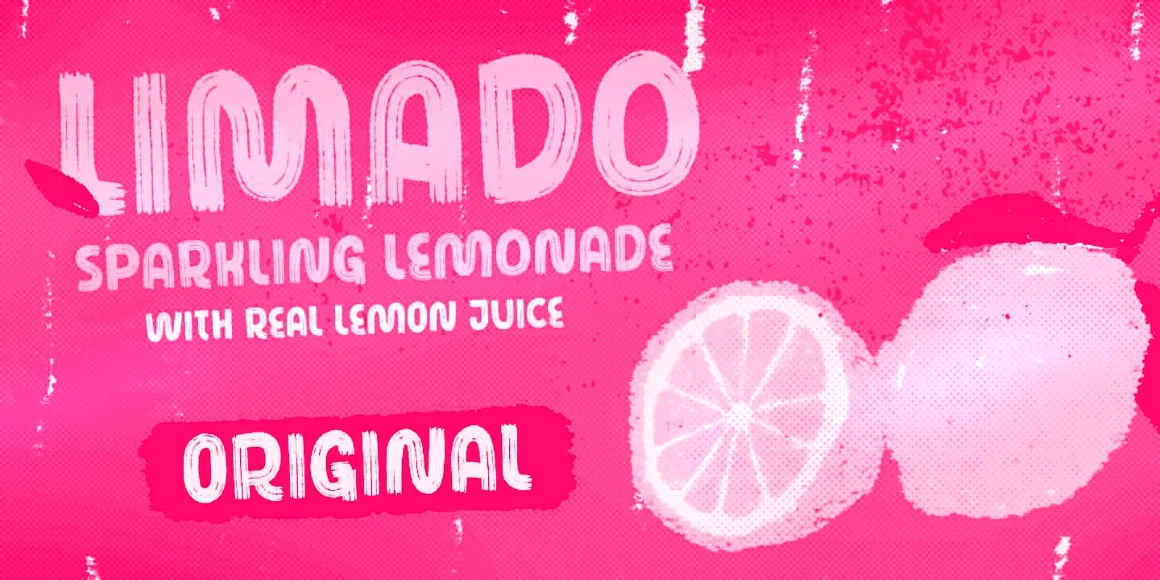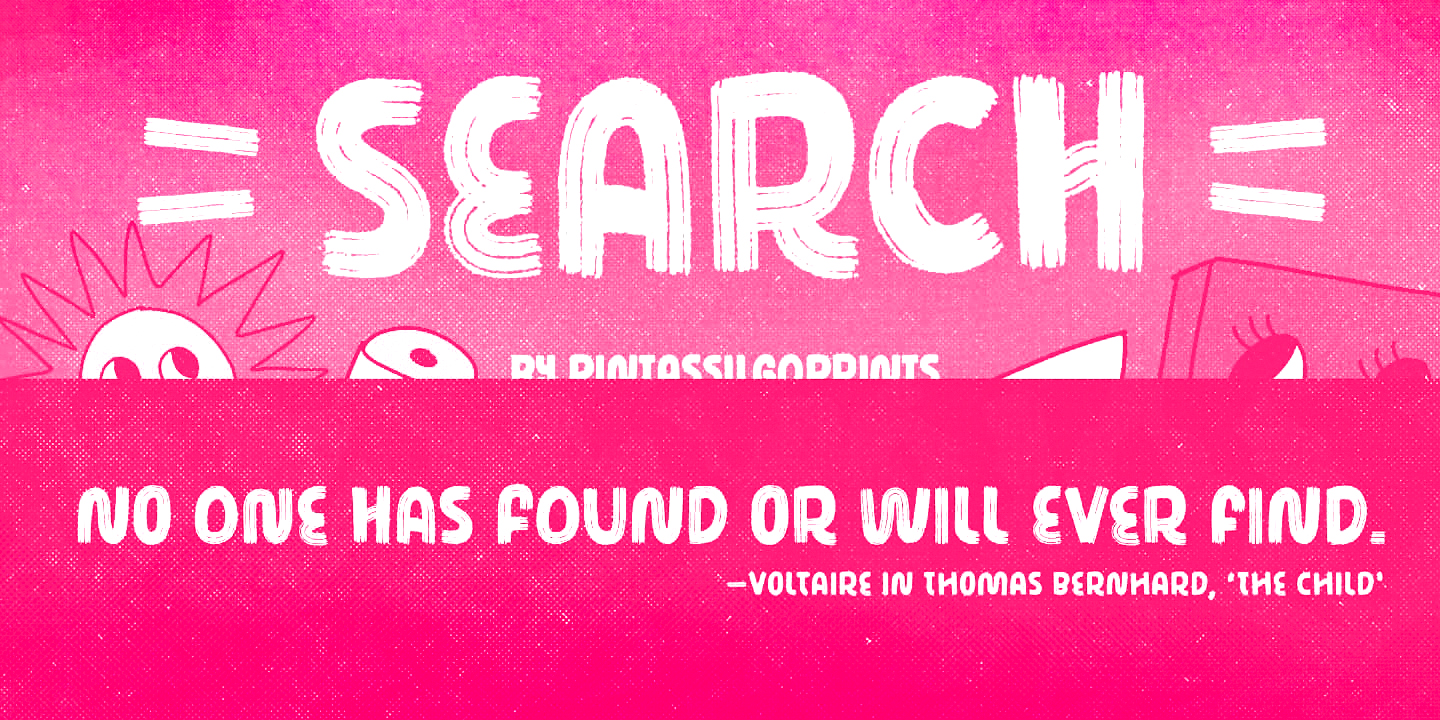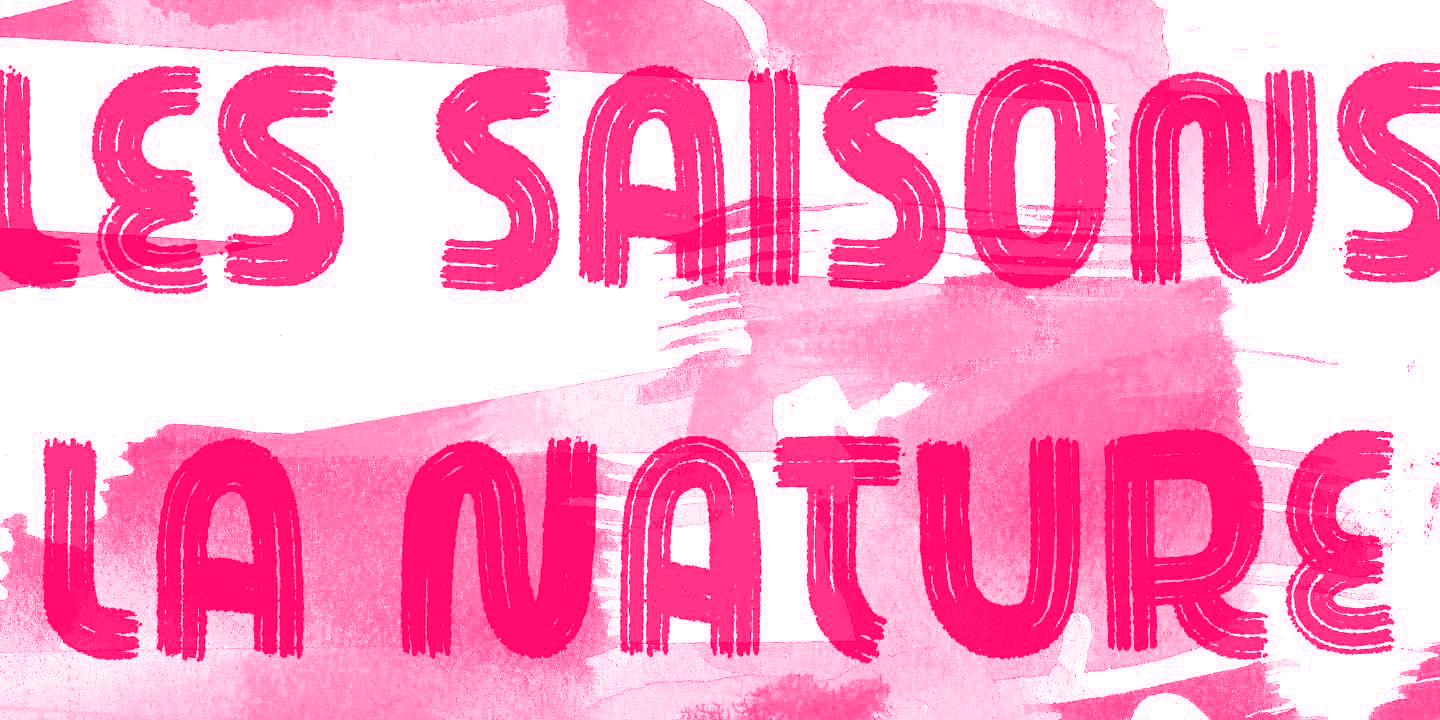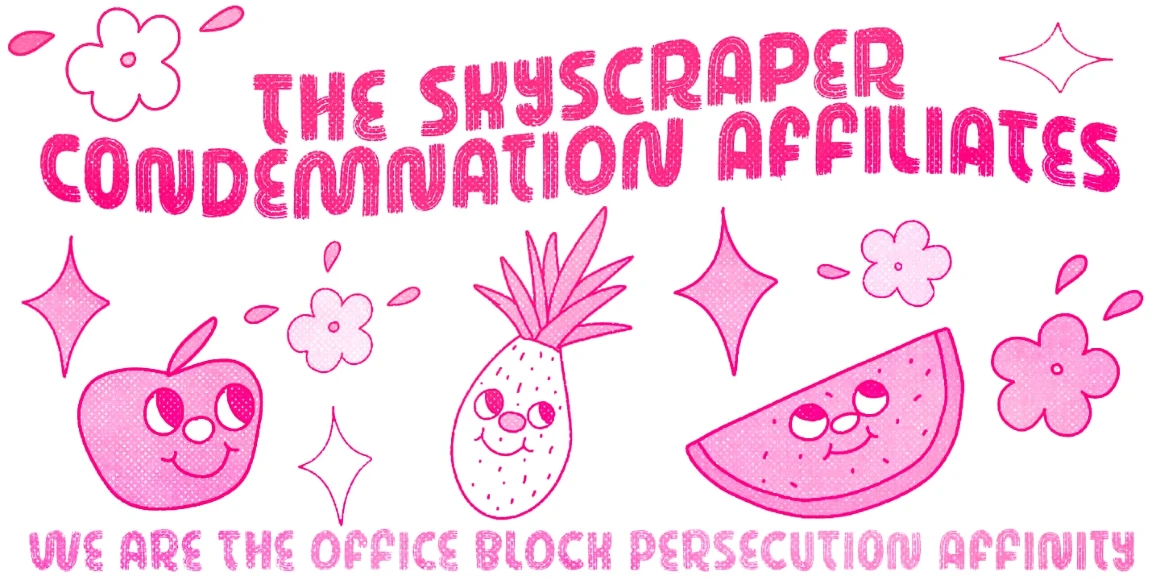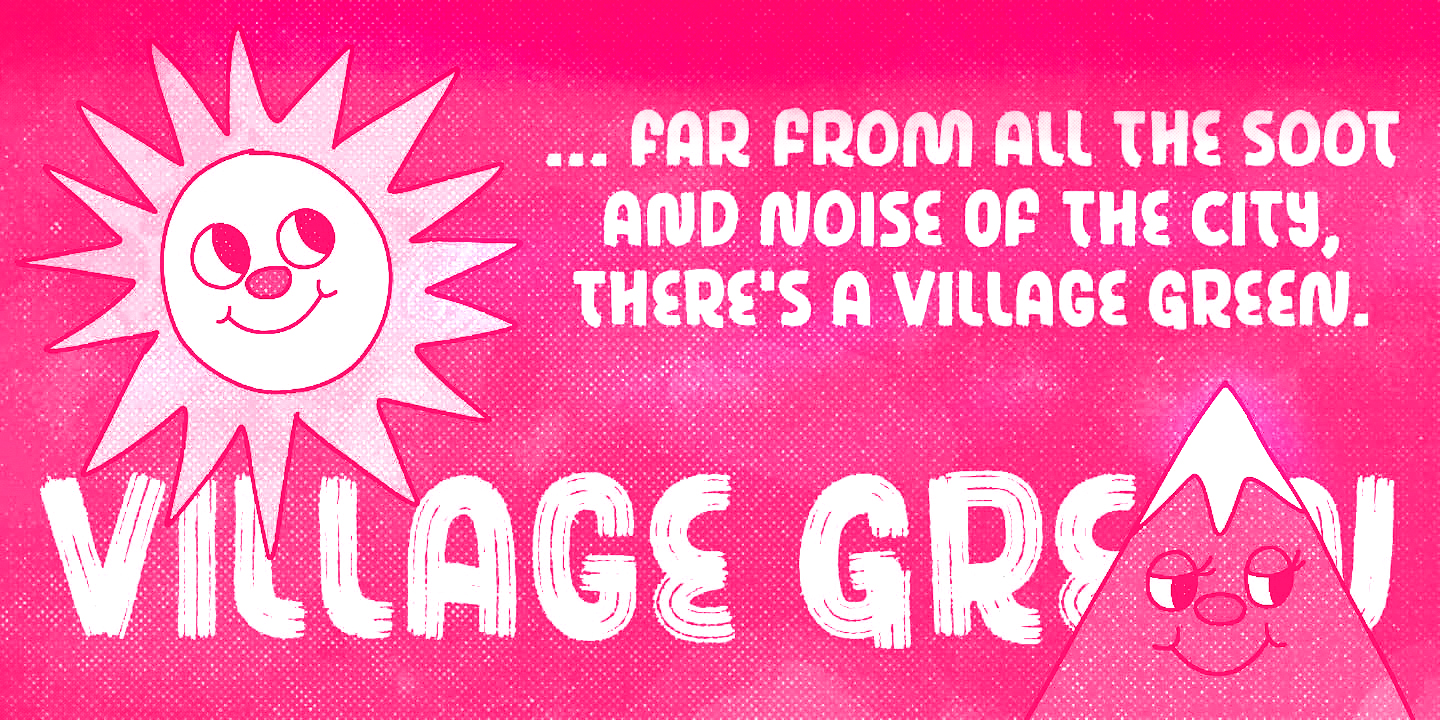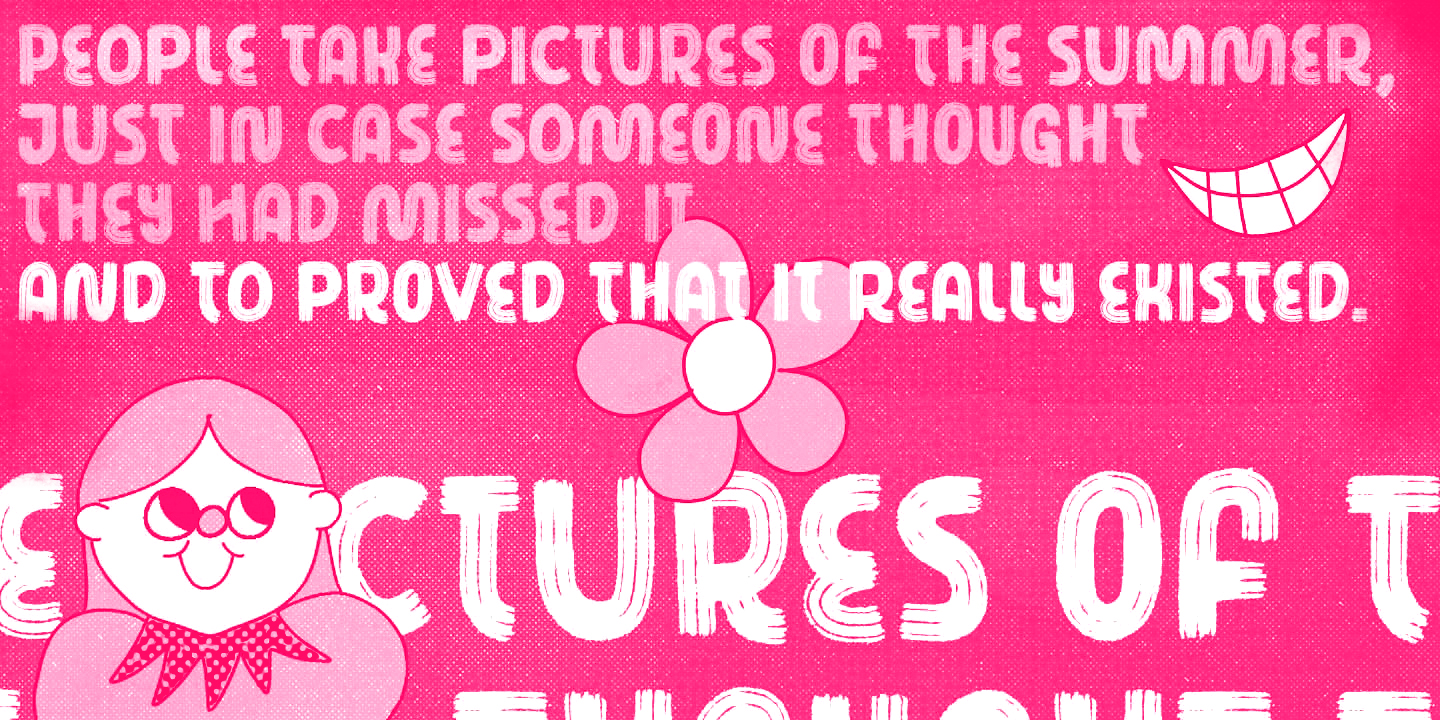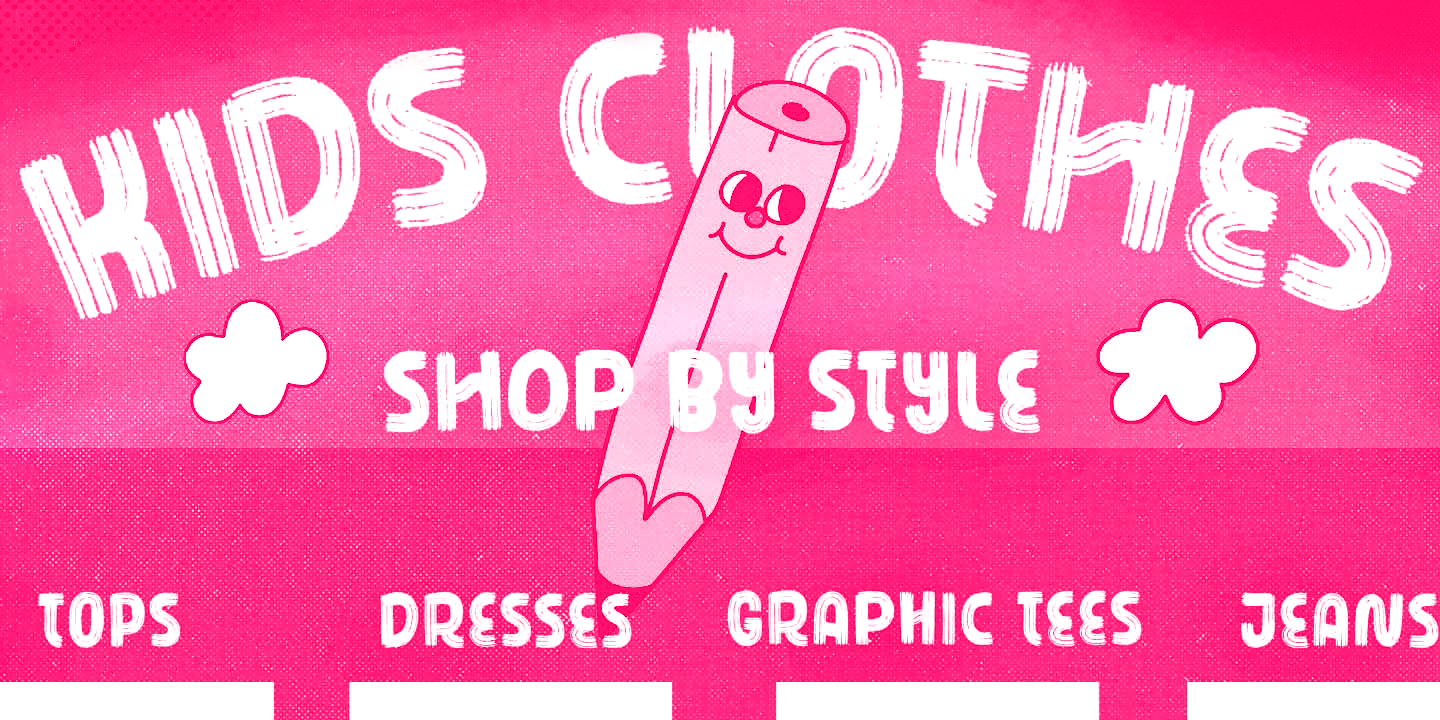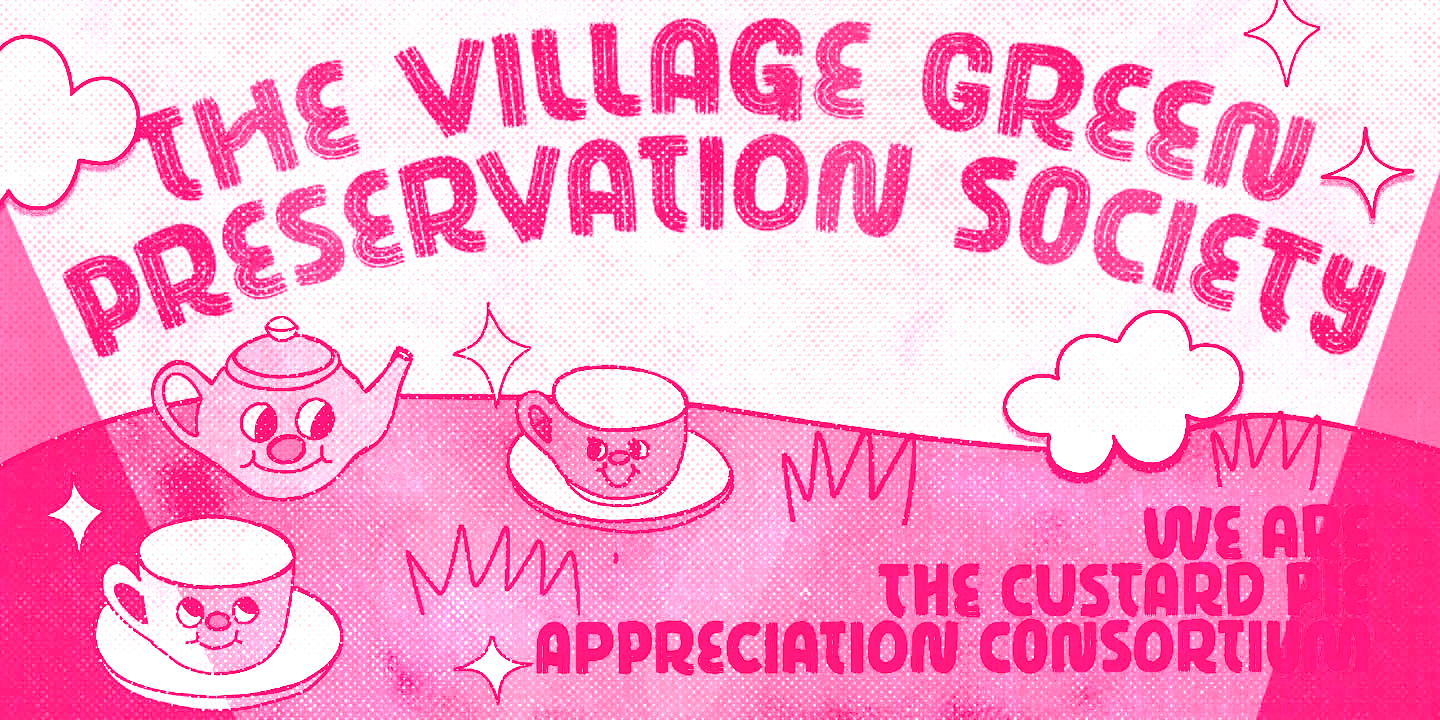
Search
Search Regular
Search Over
Search is a paintbrush font family selectively seasoned with unconventional choices. ‘Hey, they are everywhere!’ one may say, and that’s okay. This is a contemporary, upbeat design with loads of personality and some alternates, too! With or without the dry brush texture, both deliver that nice, organic, tasty, handmade feel. Whether used in editorial design, food packaging, or youth-focused campaigns, you get a warm and confident voice. Isn’t it what you’ve been searching for? We bet it is! Cheers!